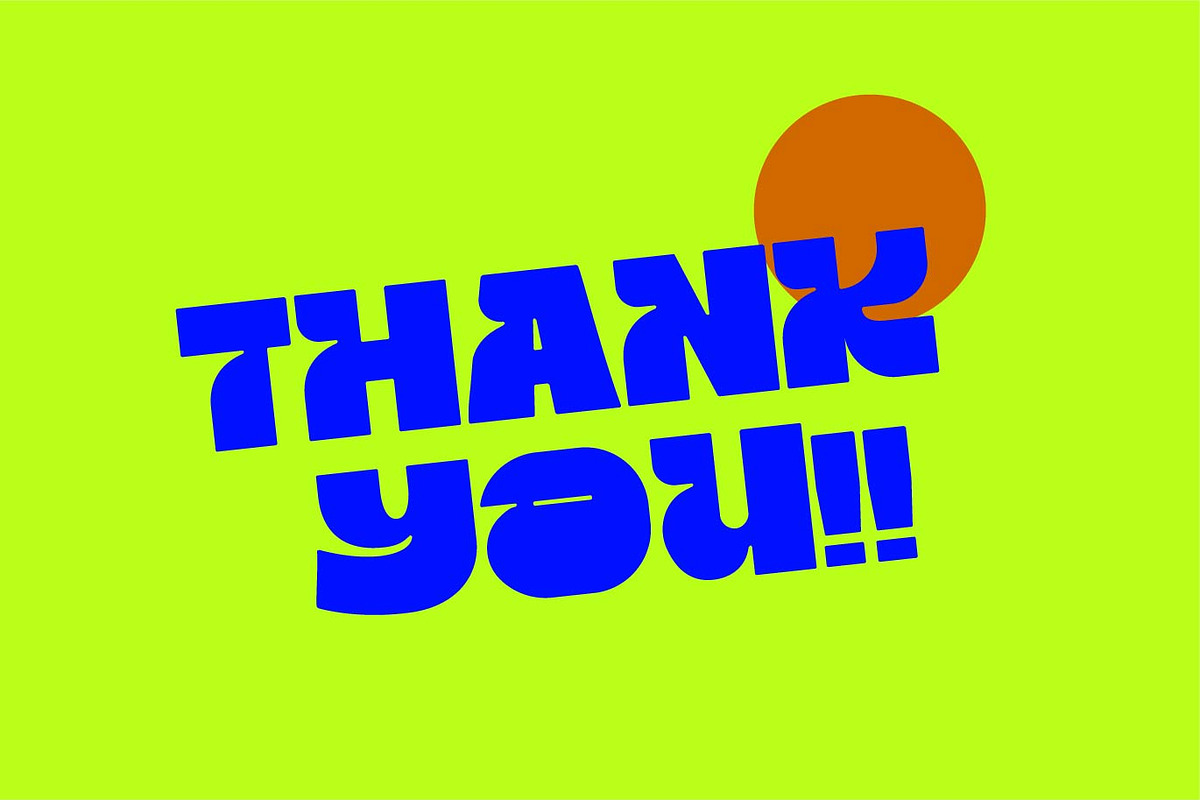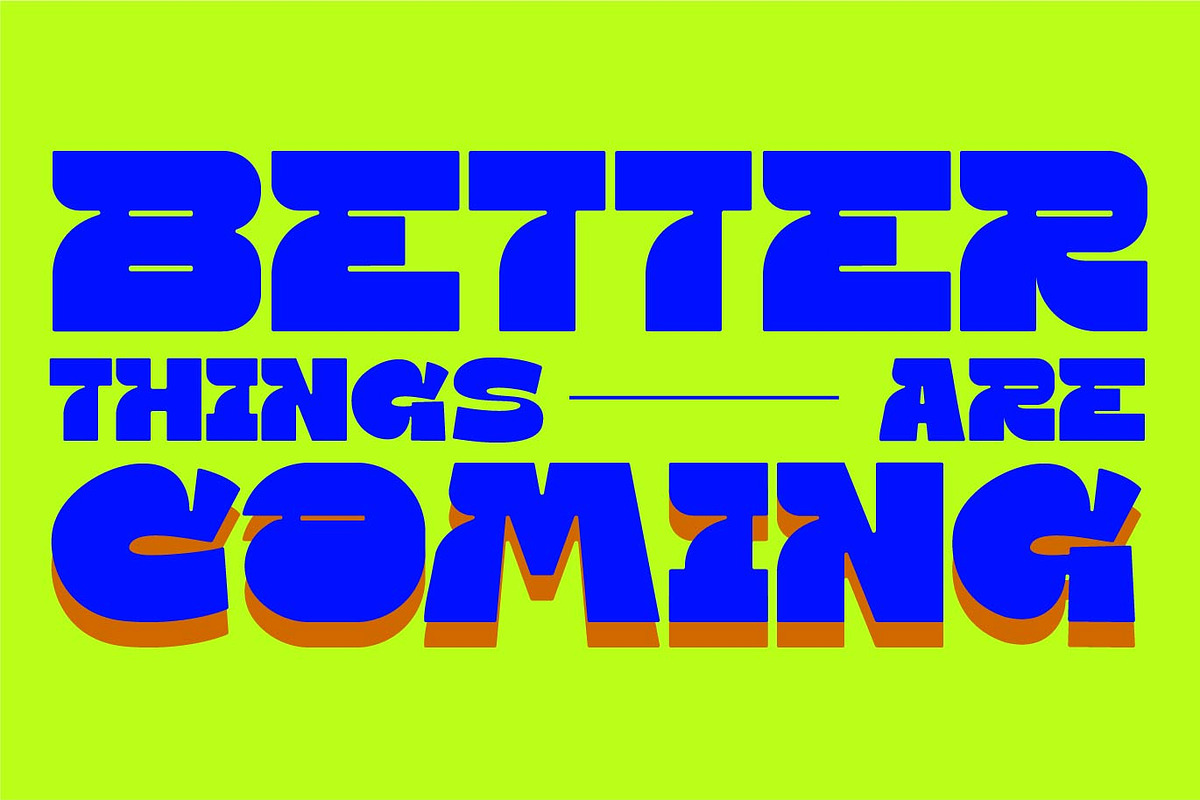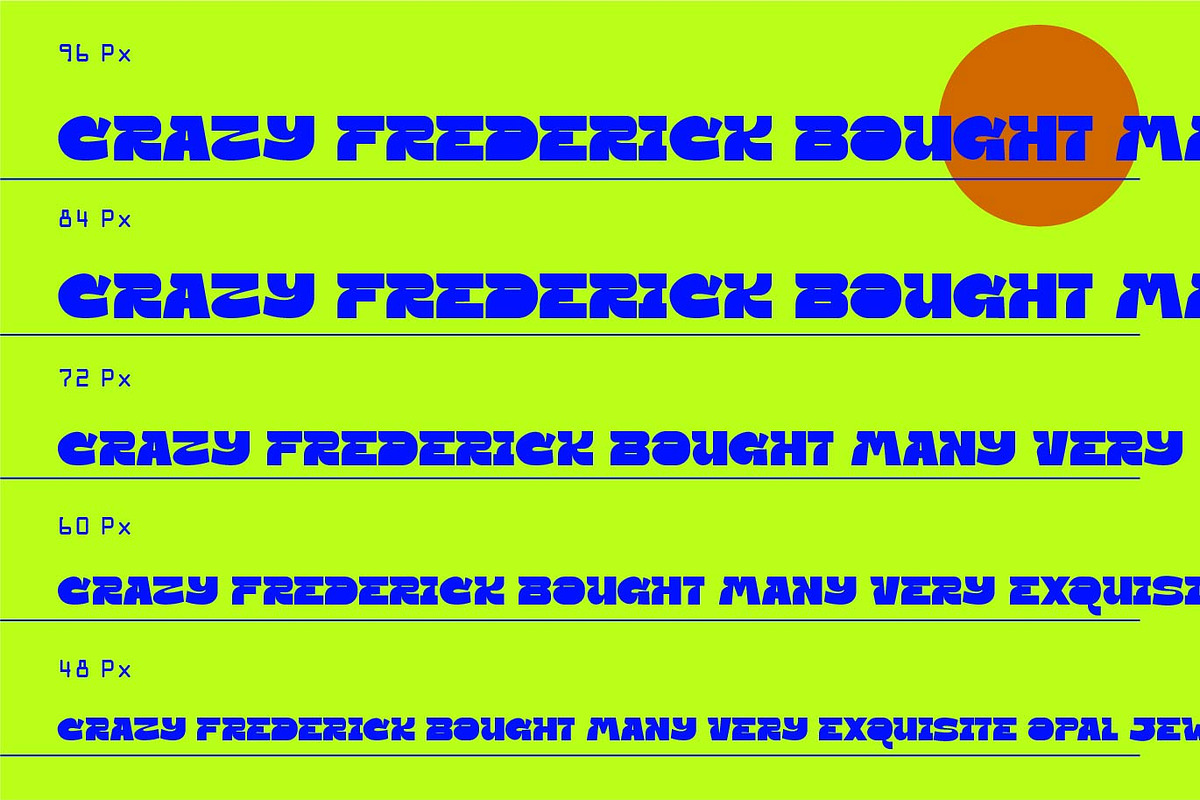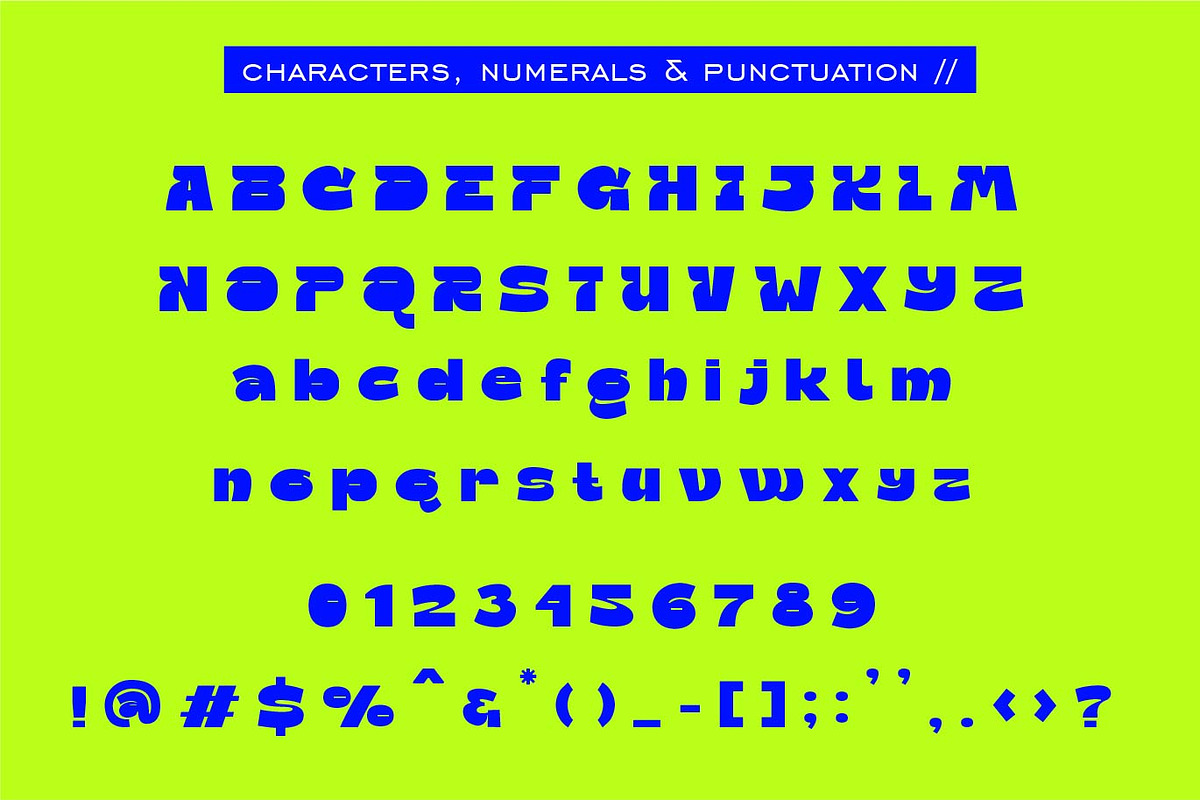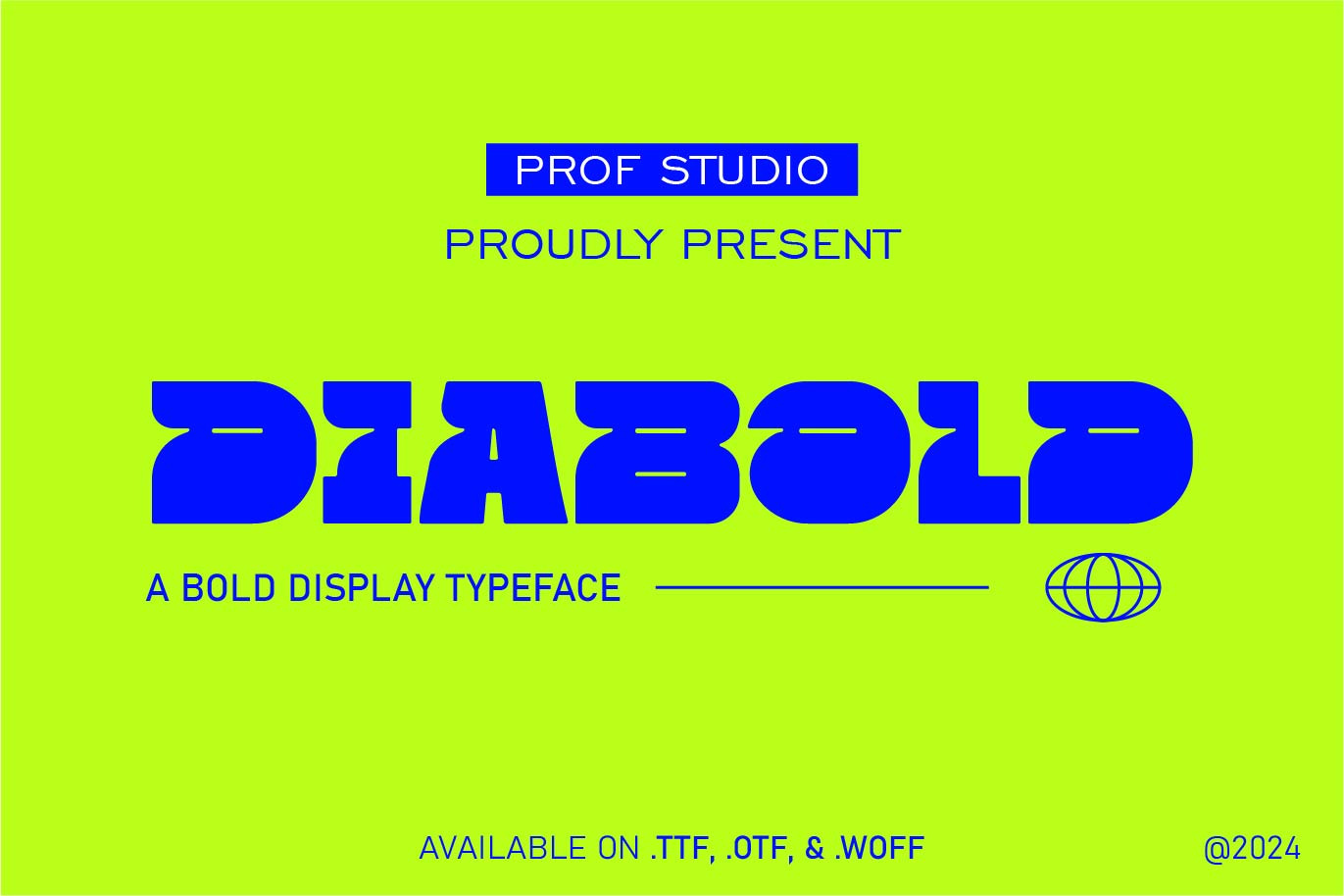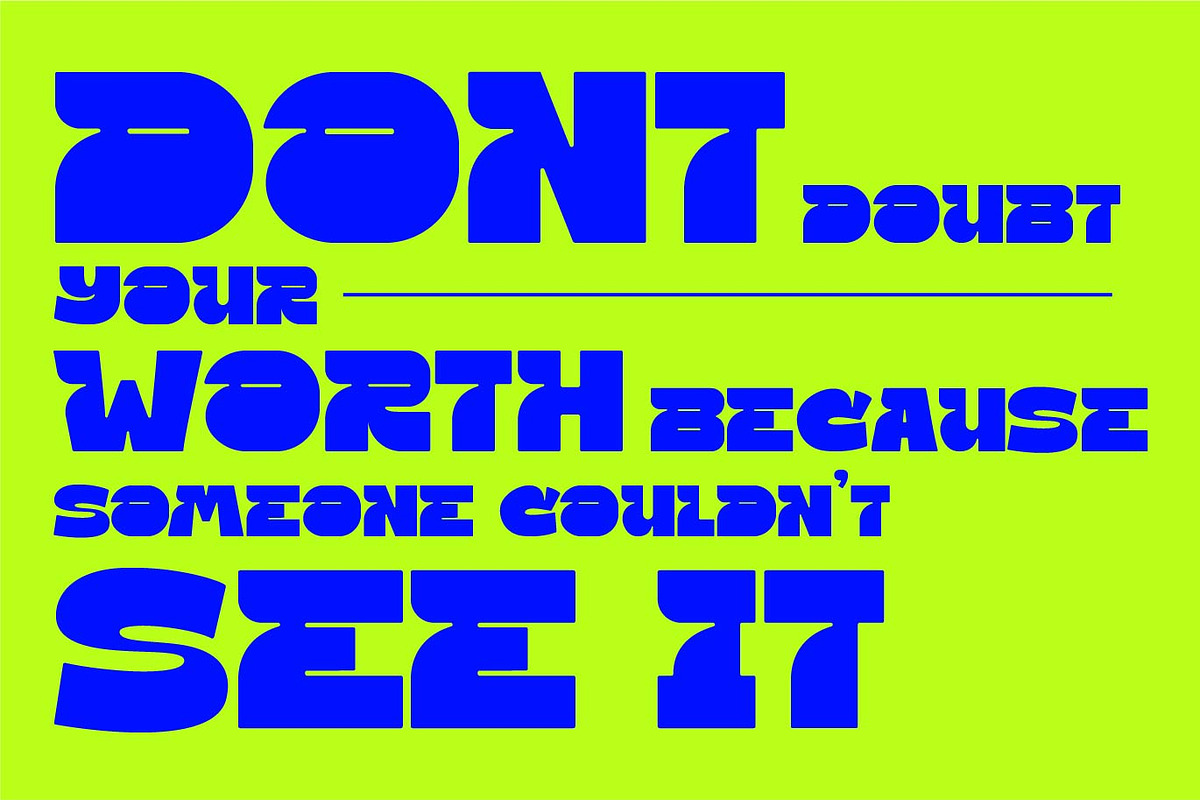
Diabold - Bold Display Typeface
Hi Ladies and Gentleman ! Proudly present Bold Sans Typeface “Diabold” for your business.
Diabold - Bold Sans Typeface which can be interpreted professional. we keep this font looks Playful, bubbly, Bold, readable, stylish, catchy and easy to use.
Diabold - is the great choice for event design ,magazine, playful poster, and many other design project. Diabold here to make your work to high level!!!